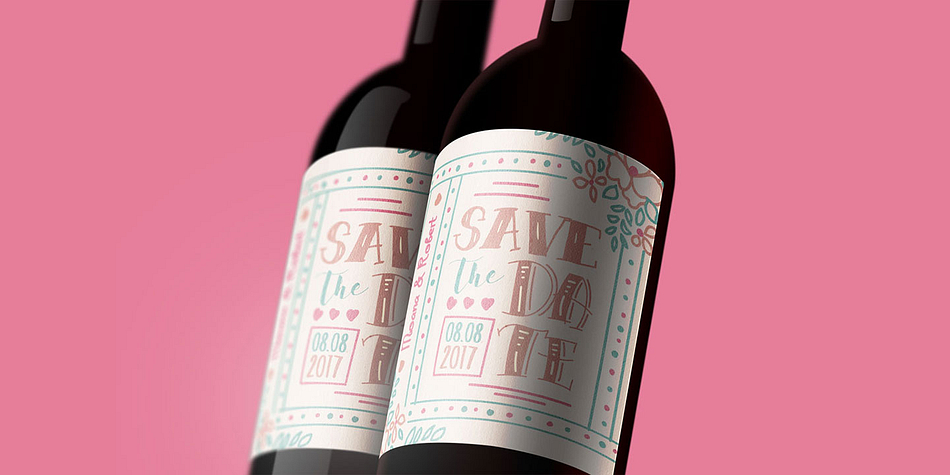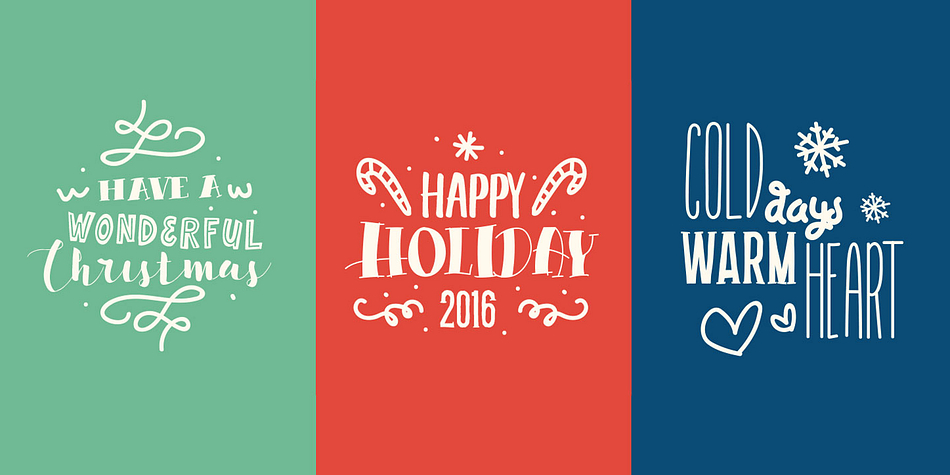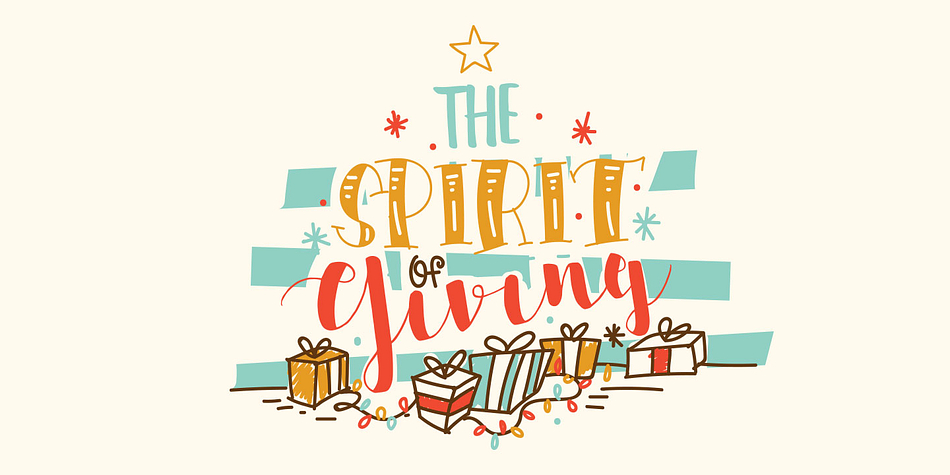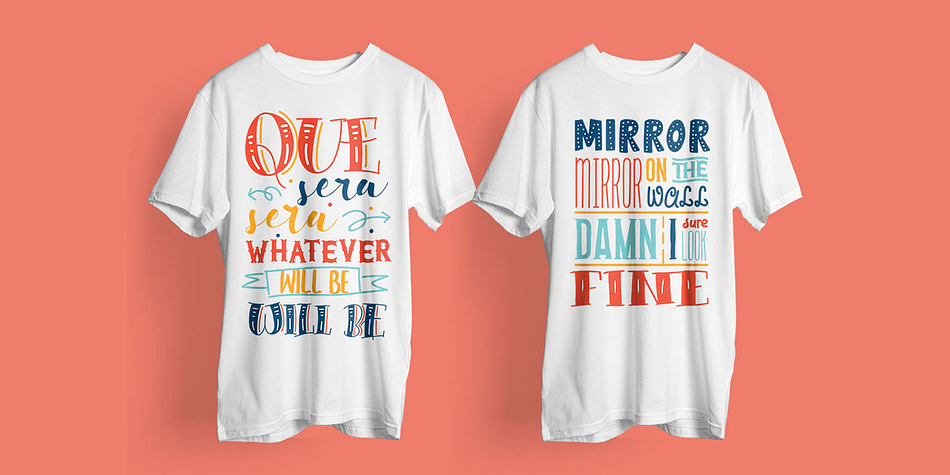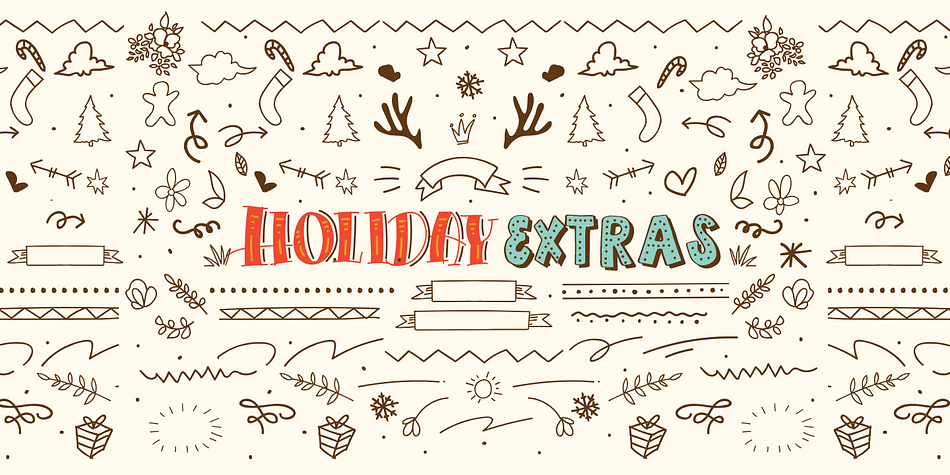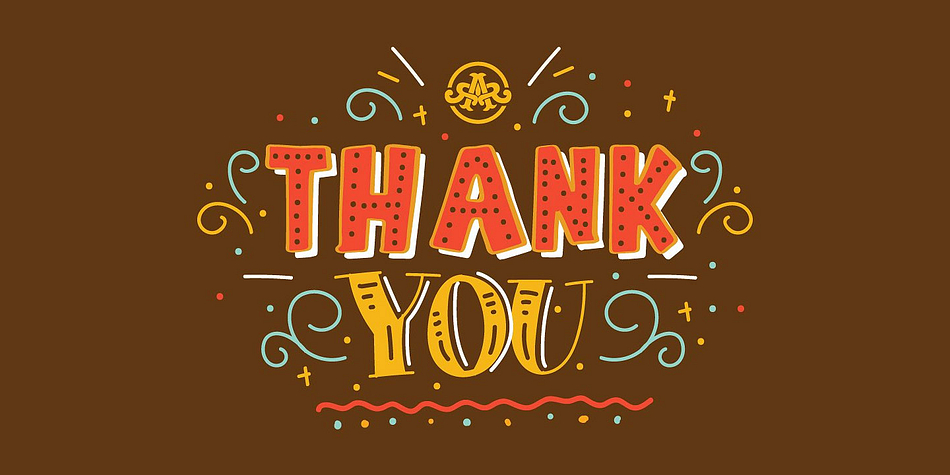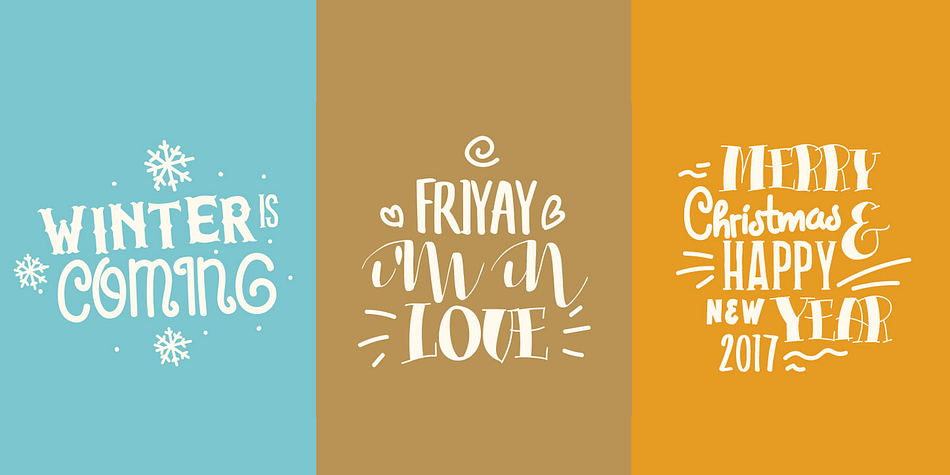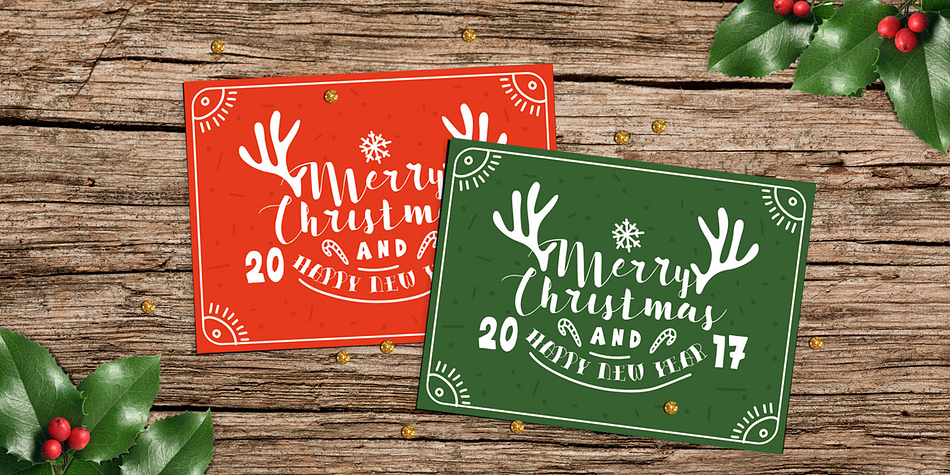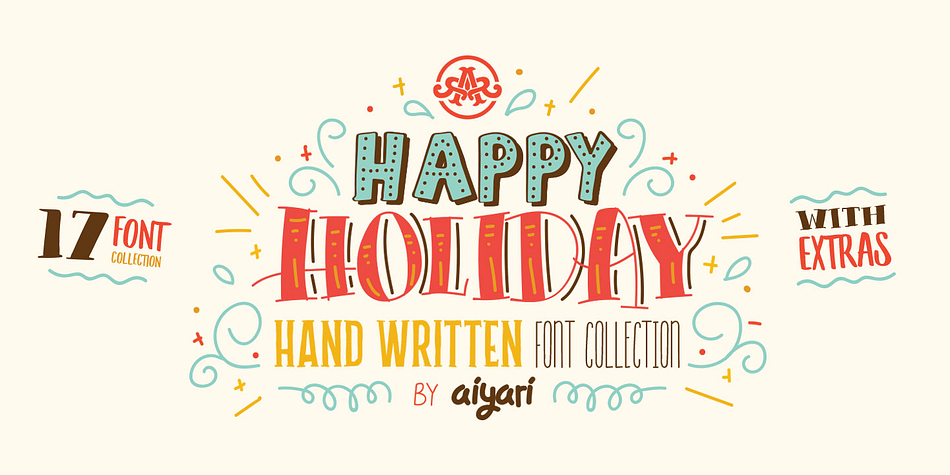
Holiday is a multiple classification font family. This typeface has eighteen styles and was published by Aiyari.
Introducing new handwritten font collection called Holiday. A fantastic 17 font collection hand written and handcrafted to create awesome hand written typographic designs.
Holiday came with 2 extras typeface from my collection nurture and euphoria bunch. As a display typeface Holiday best suitable for headlines, logotypes, printed quotes, posters, greeting card, invitation, t-shirt, and much more.
To help you make the stunning design, Holiday also came with extras graphic elements.
Styles | Brush Script, Display, Display Slab, Hand Display, Novelty, Western, Dingbat |